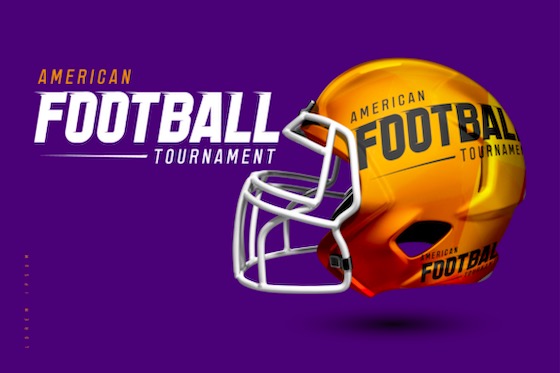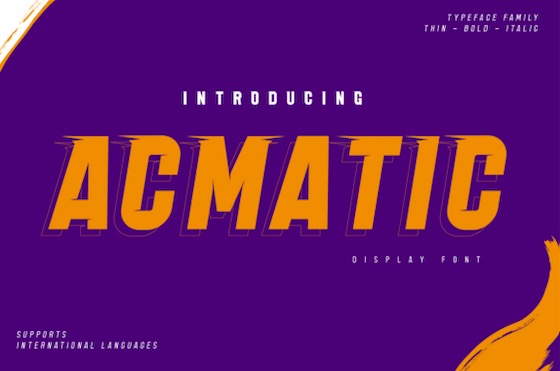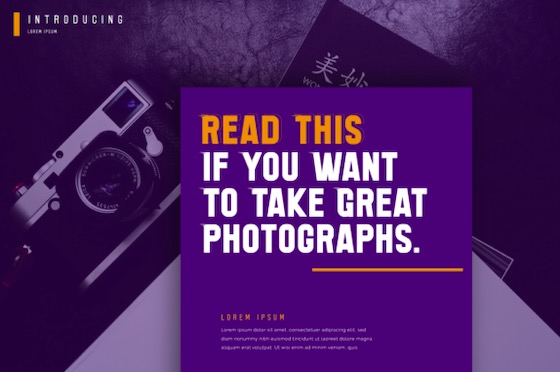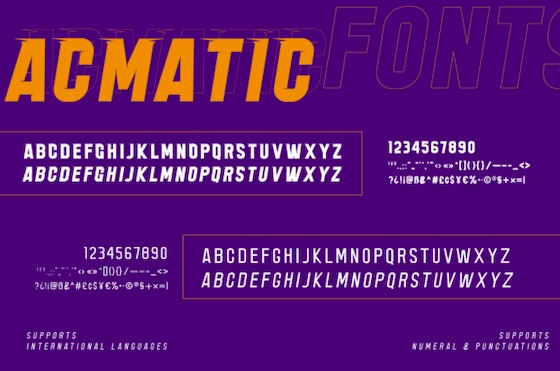
Acmatic is a vintage and modern Sans Display font. It’s designed by TwinLetter to answer the needs of unique, cool, and beautiful design projects. Acmatic font is very perfect for branding, movie titles, posters, sports events, gaming, book titles, and much more.
Acmatic Display Sans Font